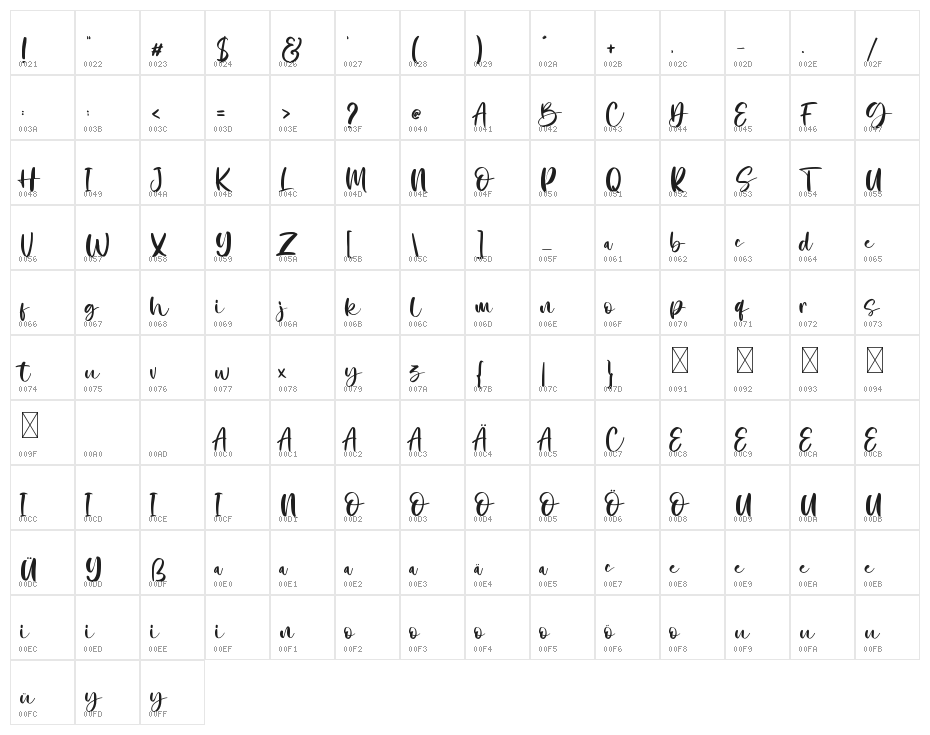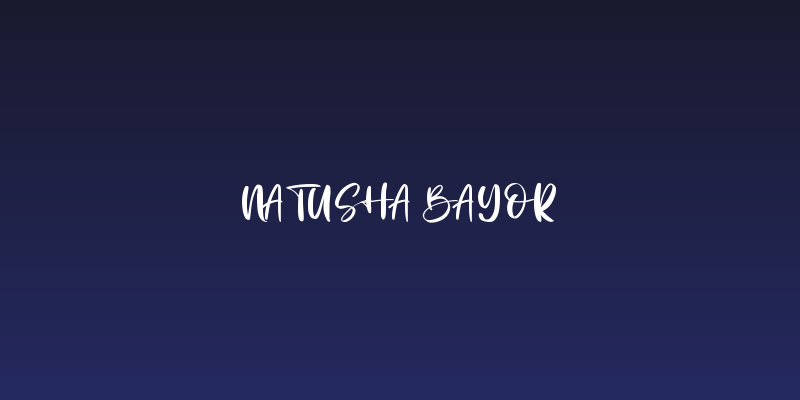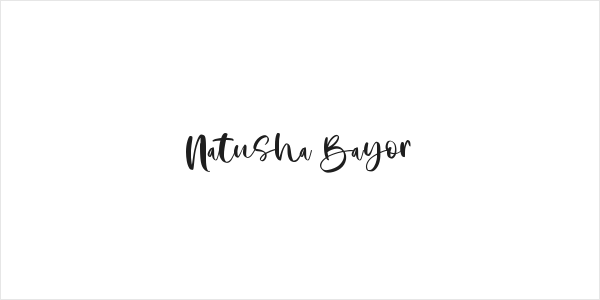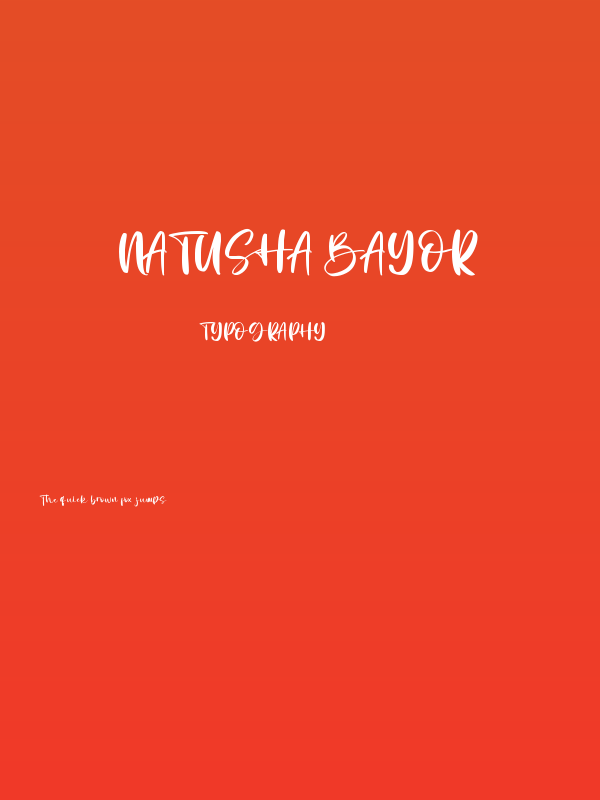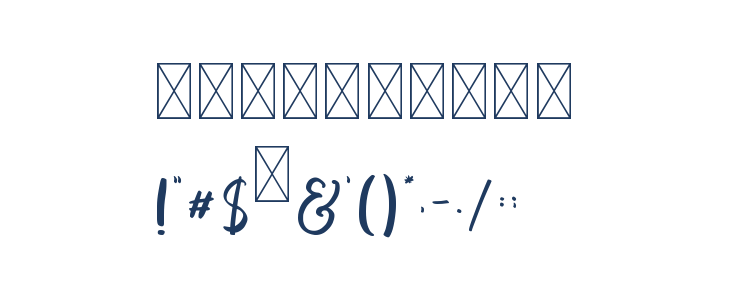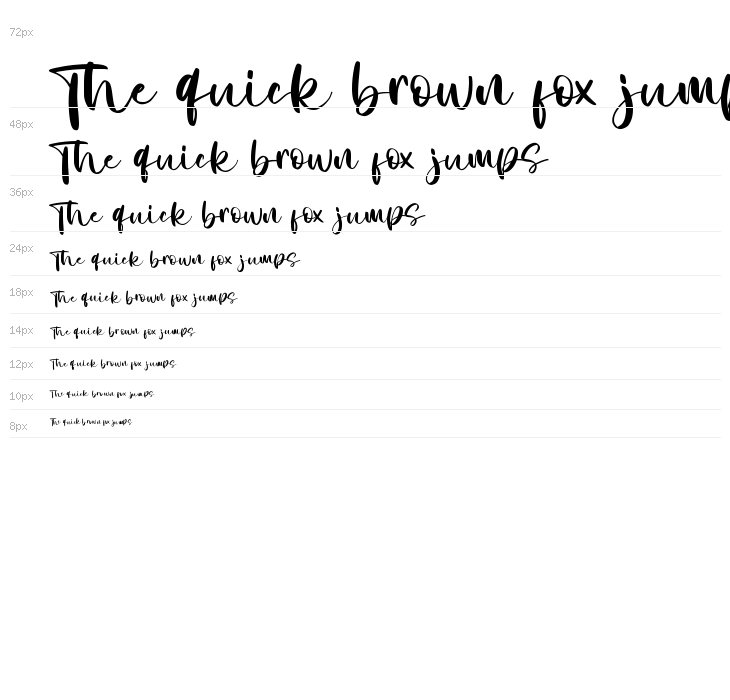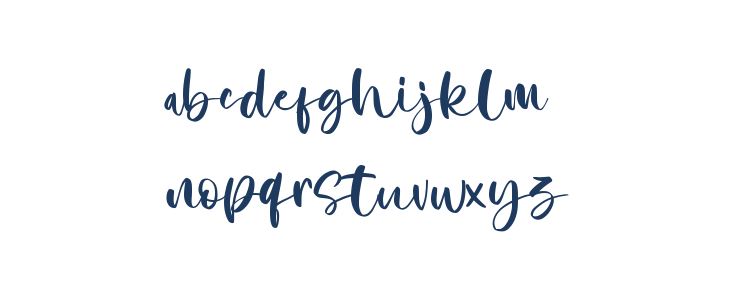
Natusha Bayor Font
Natusha Bayor Description
This font features a bold and expressive handwritten style, characterized by its fluid strokes and dynamic curves. The uppercase letters are particularly striking, with a playful yet elegant flair that captures attention. The lowercase letters maintain a consistent flow, complementing the uppercase with a more subtle charm. The numerals and special characters are crafted with the same attention to detail, ensuring a cohesive look across all text elements. This font's unique style makes it ideal for creative projects that require a personal touch.